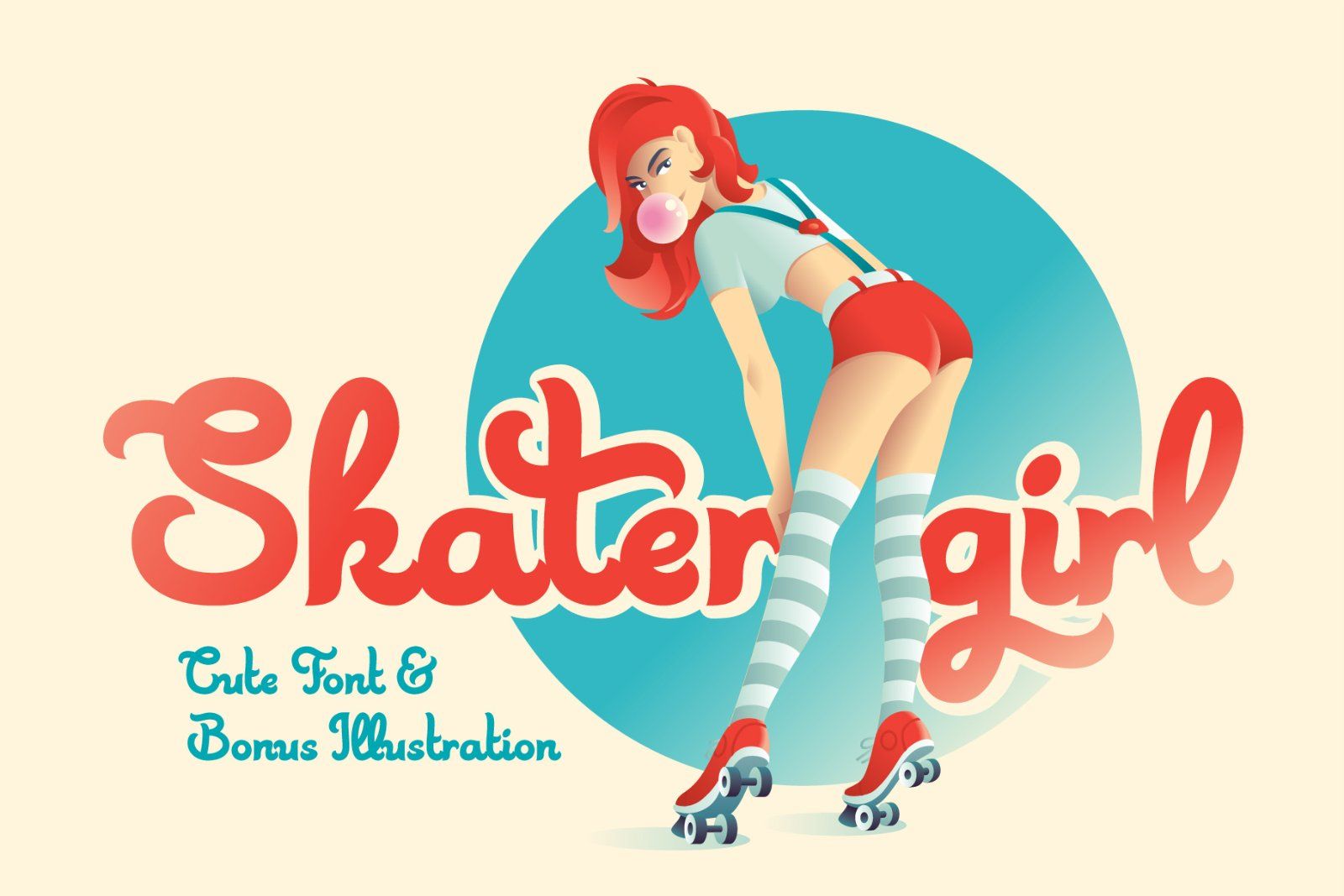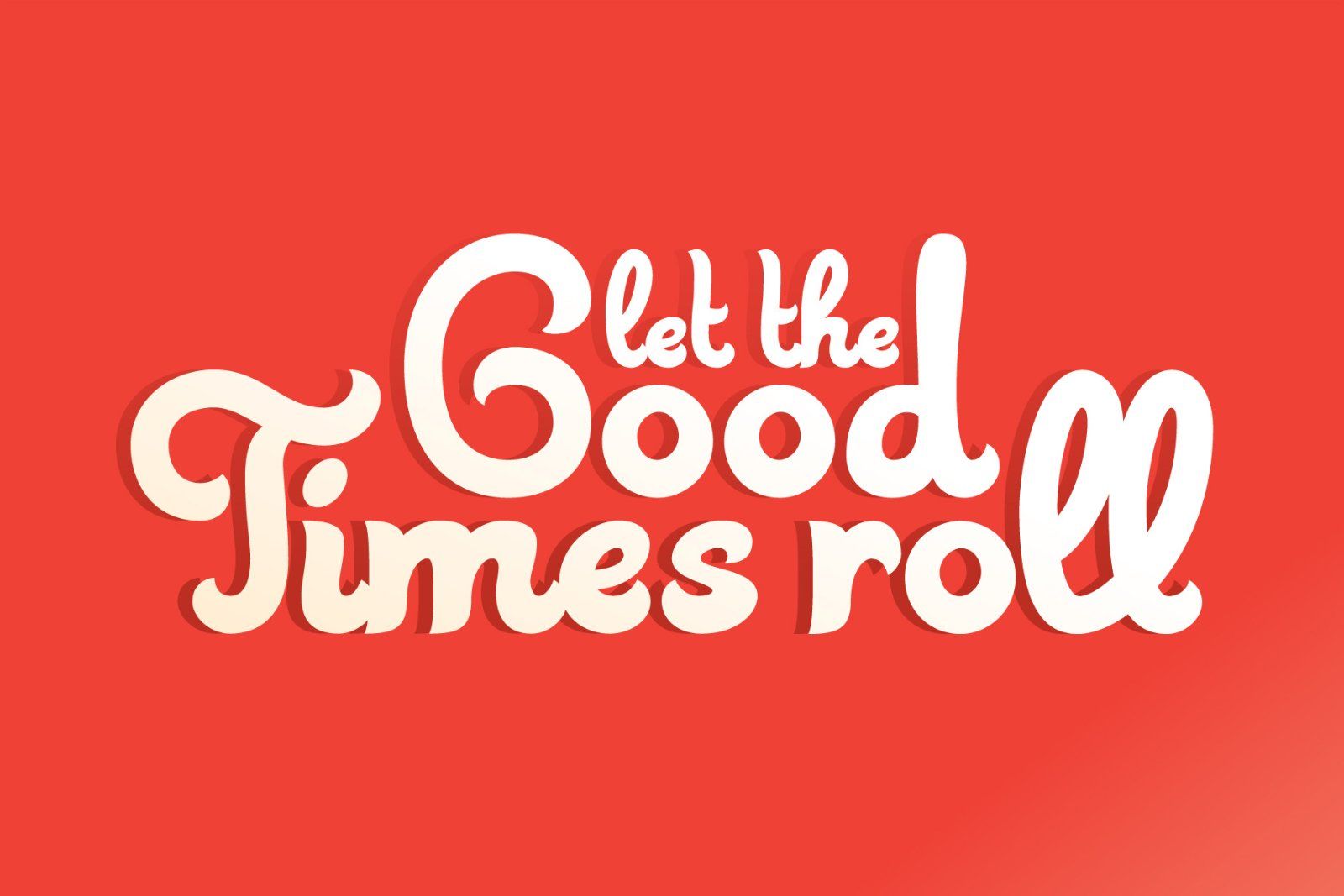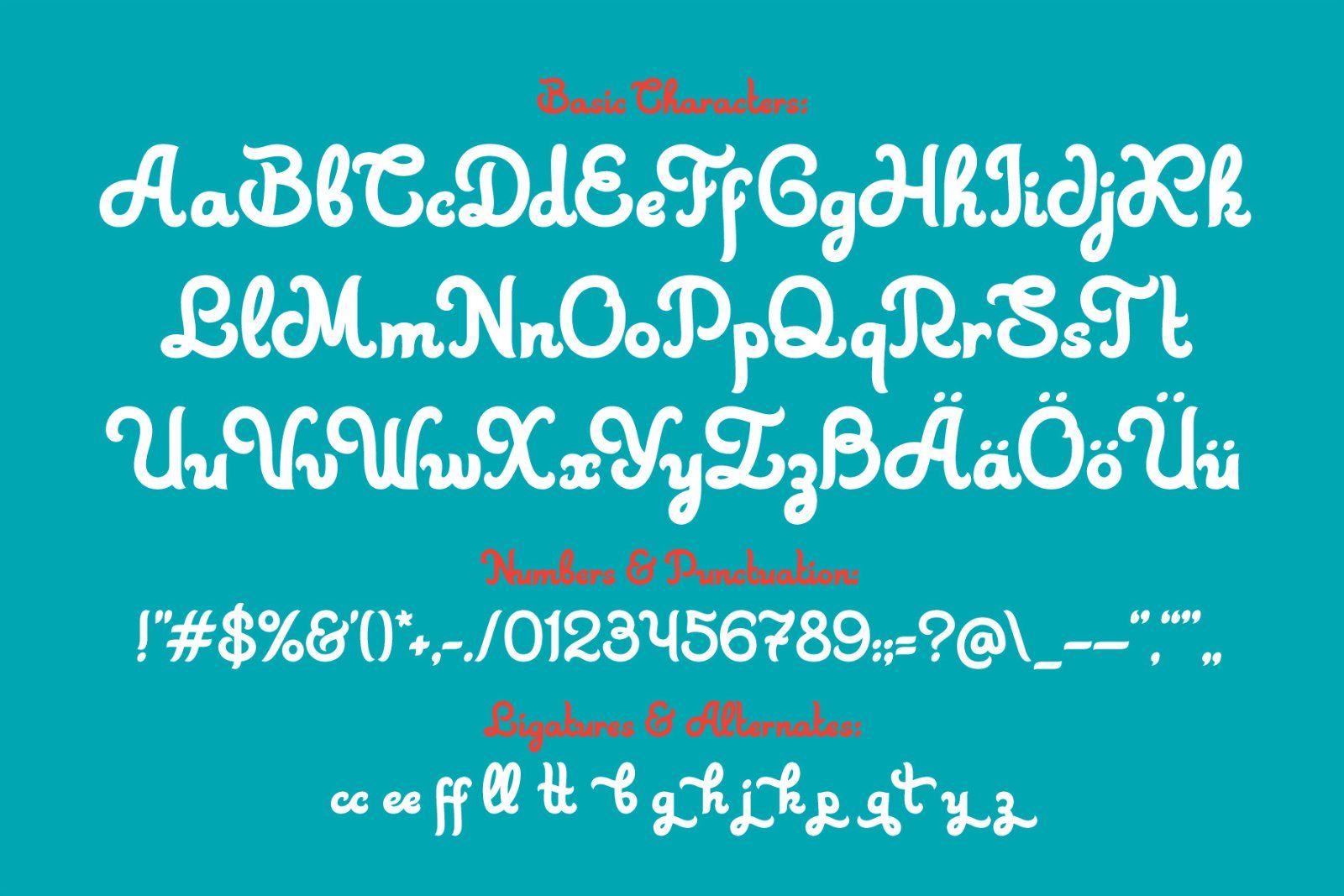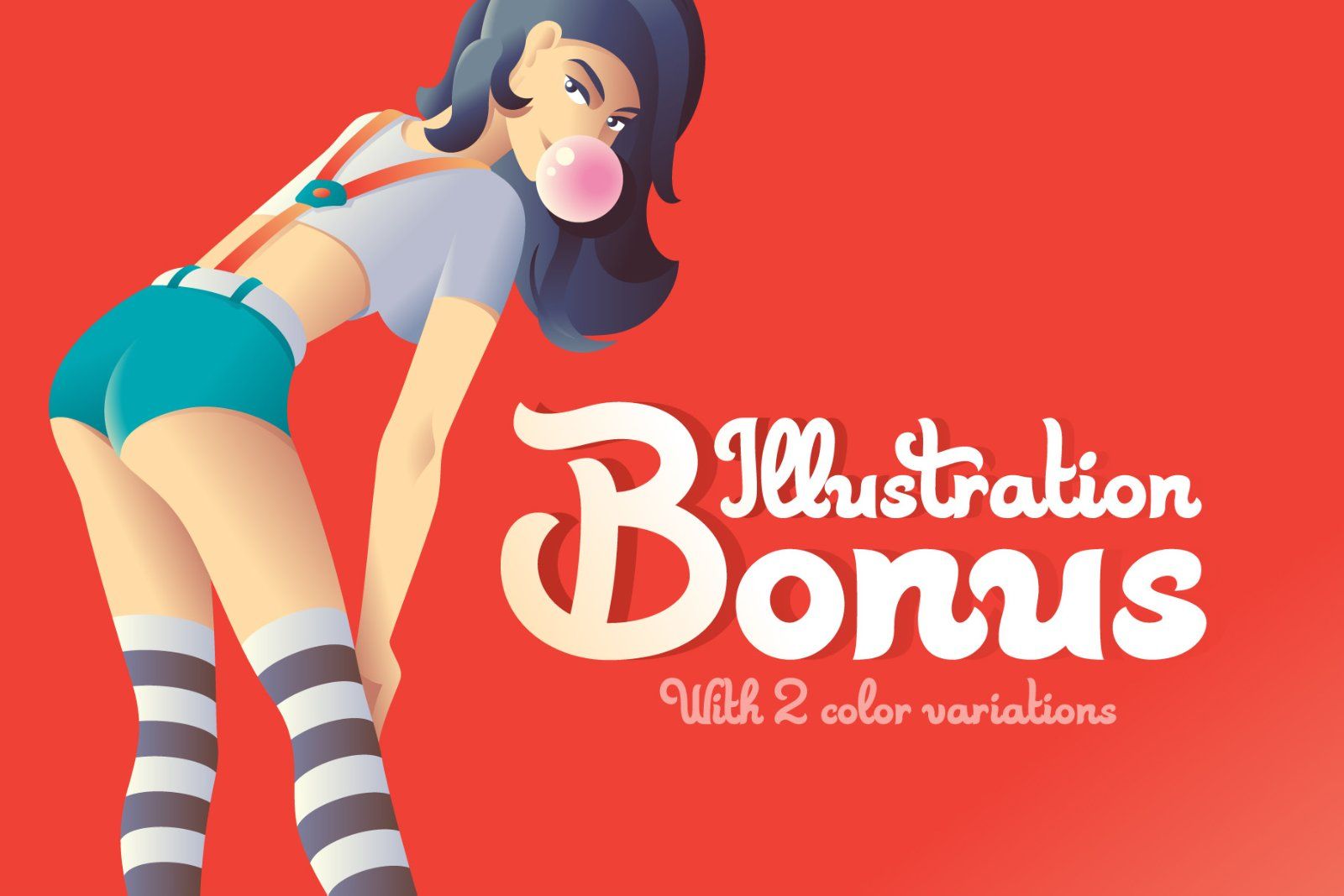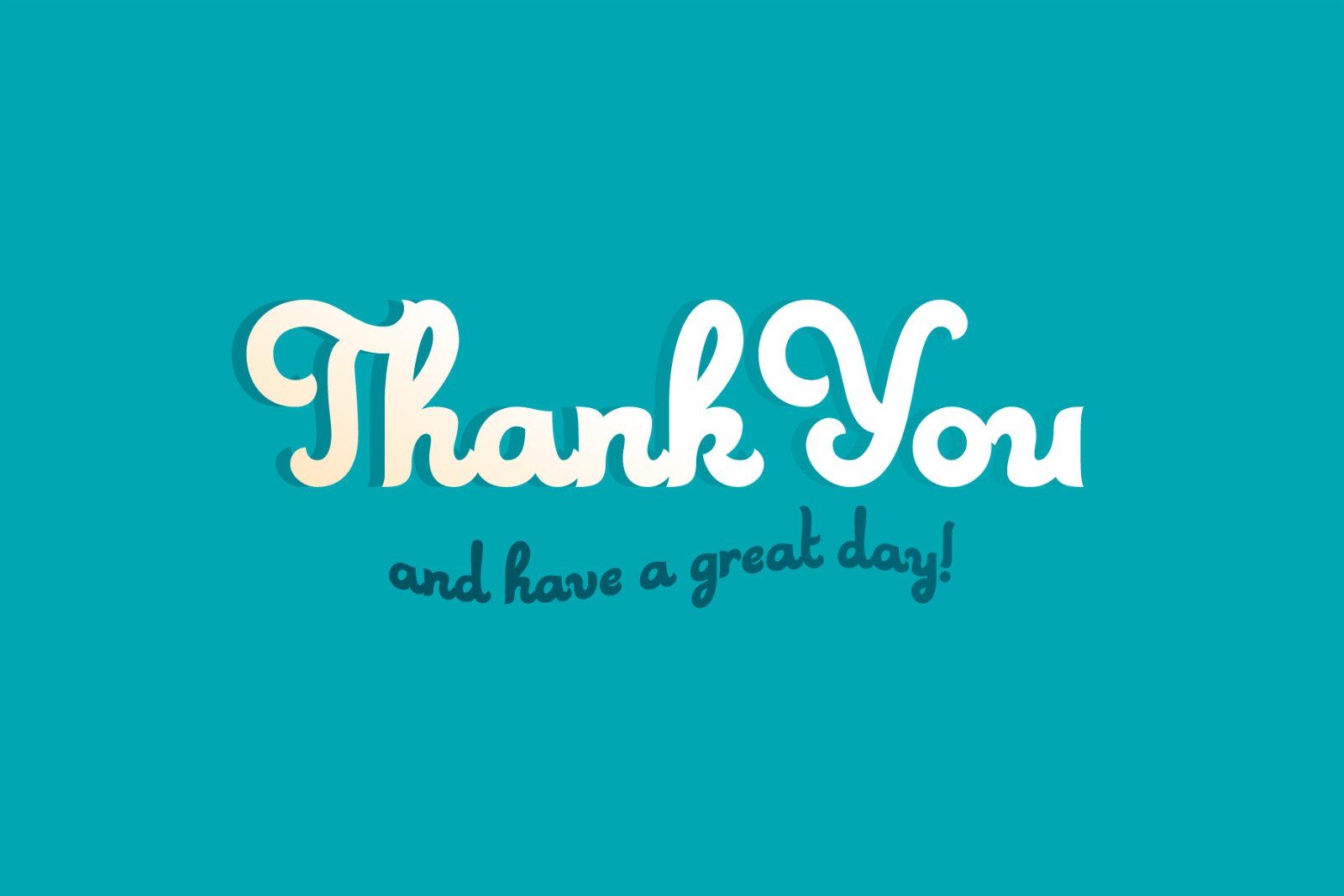
Hi! Presenting a cute pin-up style font named Skater Girl. It has a modern and vintage look at the same time. Also few ligatures and alternate glyphs are available in this typeface (all characters you can see on the 3rd screenshot). As a bonus you'll get an illustration poster with pretty girl on a roller skates in vector and raster formats (2 color variations included)